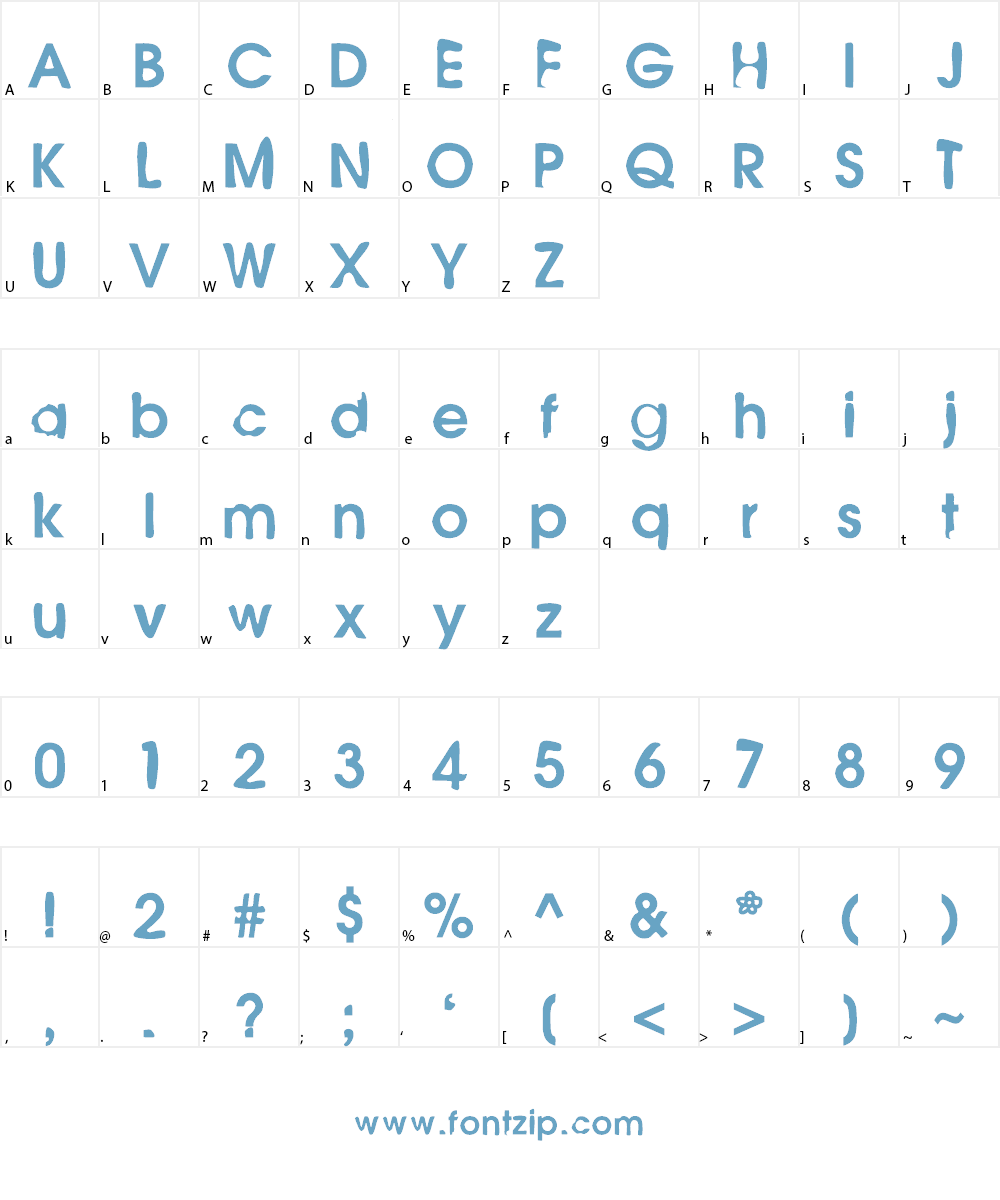
Avant Garden 2042 is the new version of Sander Kessels' Avant Garden.
Based on the original typeface called Avant Garden.
But watch for the insects and worms!